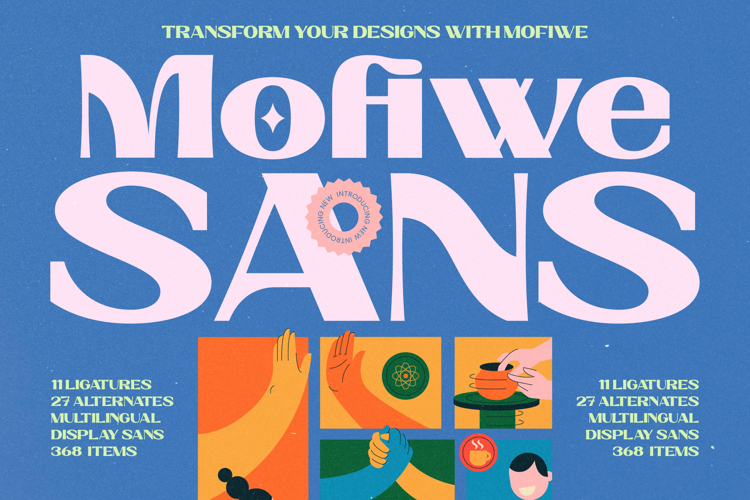
Mofiwe Sans - Expressive Display Sans
Unleash a wave of nostalgic warmth and contemporary cool with Mofiwe Sans, a dynamic display typeface designed to make a statement. Mofiwe masterfully blends the clean confidence of a sans serif with the elegant, flared terminals of a classic serif, creating an unforgettable visual rhythm. Its groovy curves and high-contrast strokes inject an instant dose of personality and approachable charm, ensuring your message is not just read, but felt.